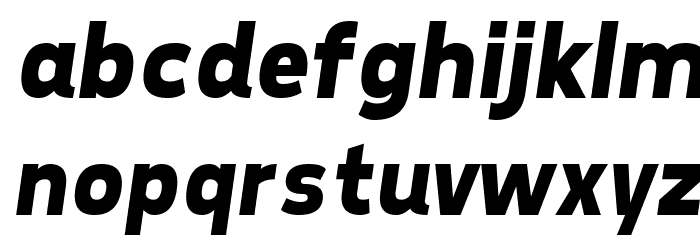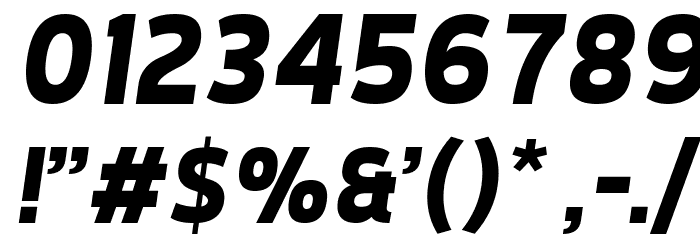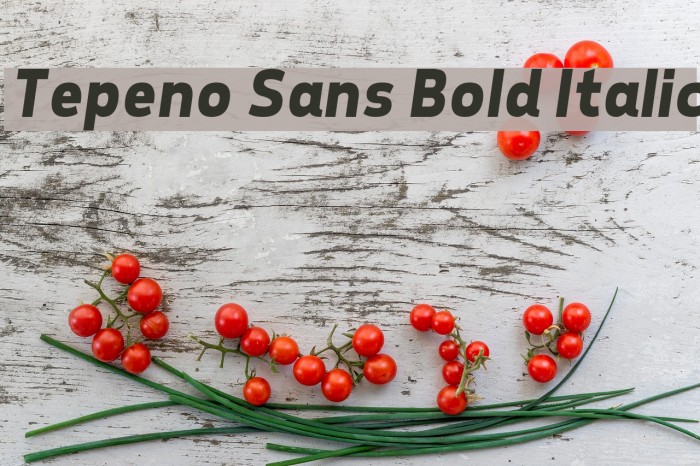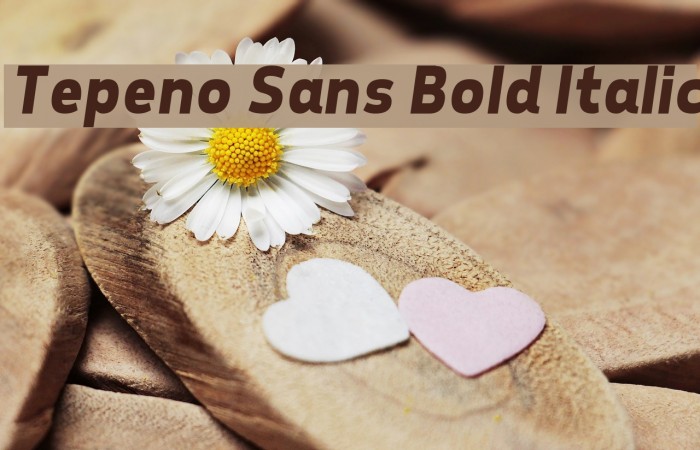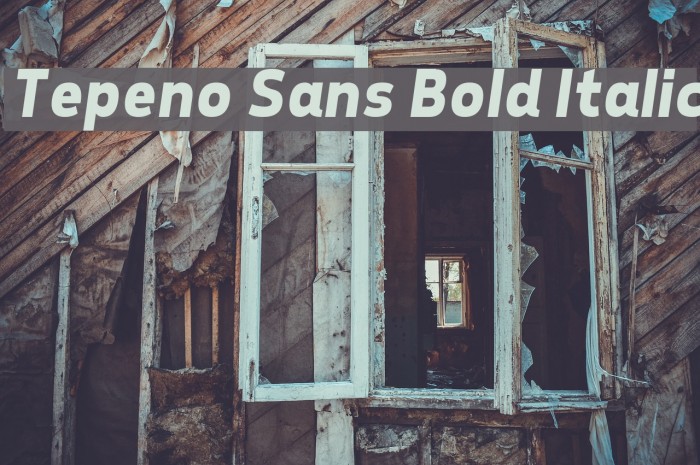
Tepeno Sans Bold Italic Font
This font exhibits a bold and italicized style, characterized by its strong presence and dynamic slant. The uppercase letters are robust, with a consistent thickness that conveys a sense of stability and confidence. The lowercase letters maintain the same boldness, ensuring readability and impact. Numbers are clear and distinct, making them suitable for various applications. The special characters are well-defined, complementing the overall aesthetic. The font's design is modern, with a sans-serif structure that emphasizes simplicity and clarity, making it versatile for both digital and print media.
- Proposed Projects: Ideal for branding, advertising, headlines, and digital media where a strong, modern presence is required.
- Use Case: Headlines, Logos, Branding